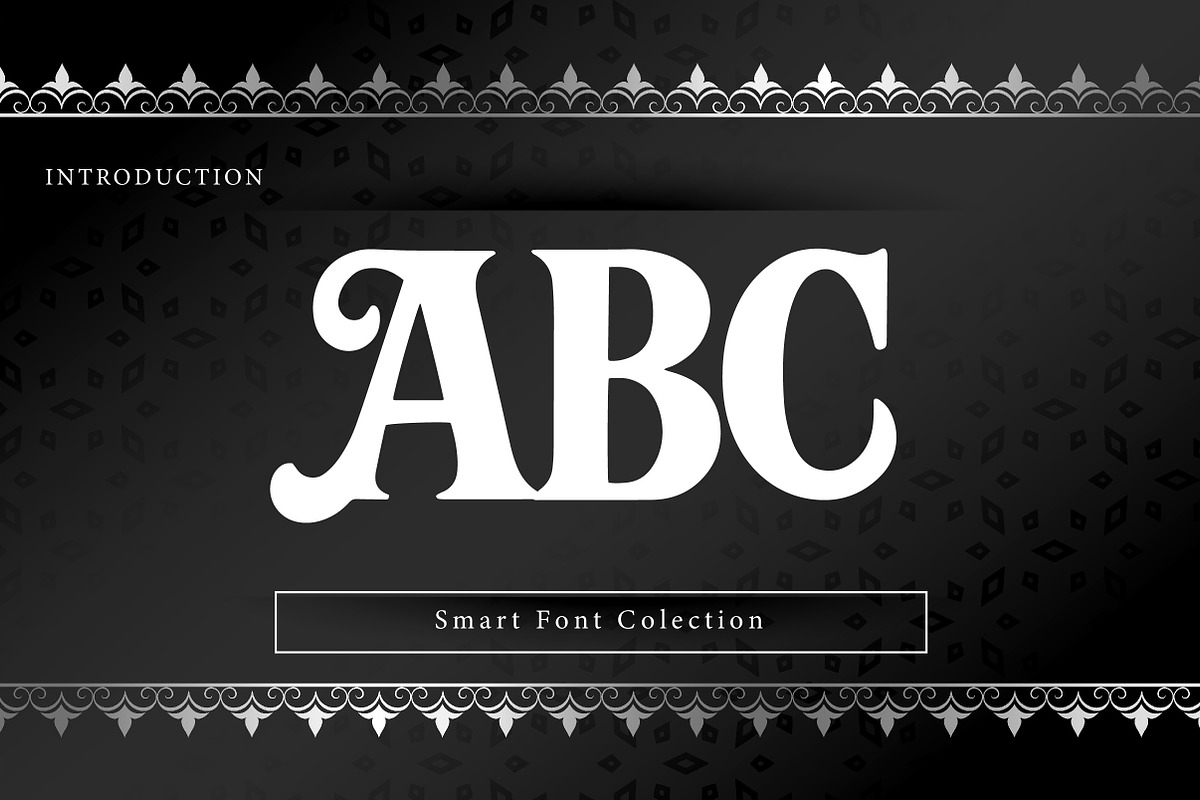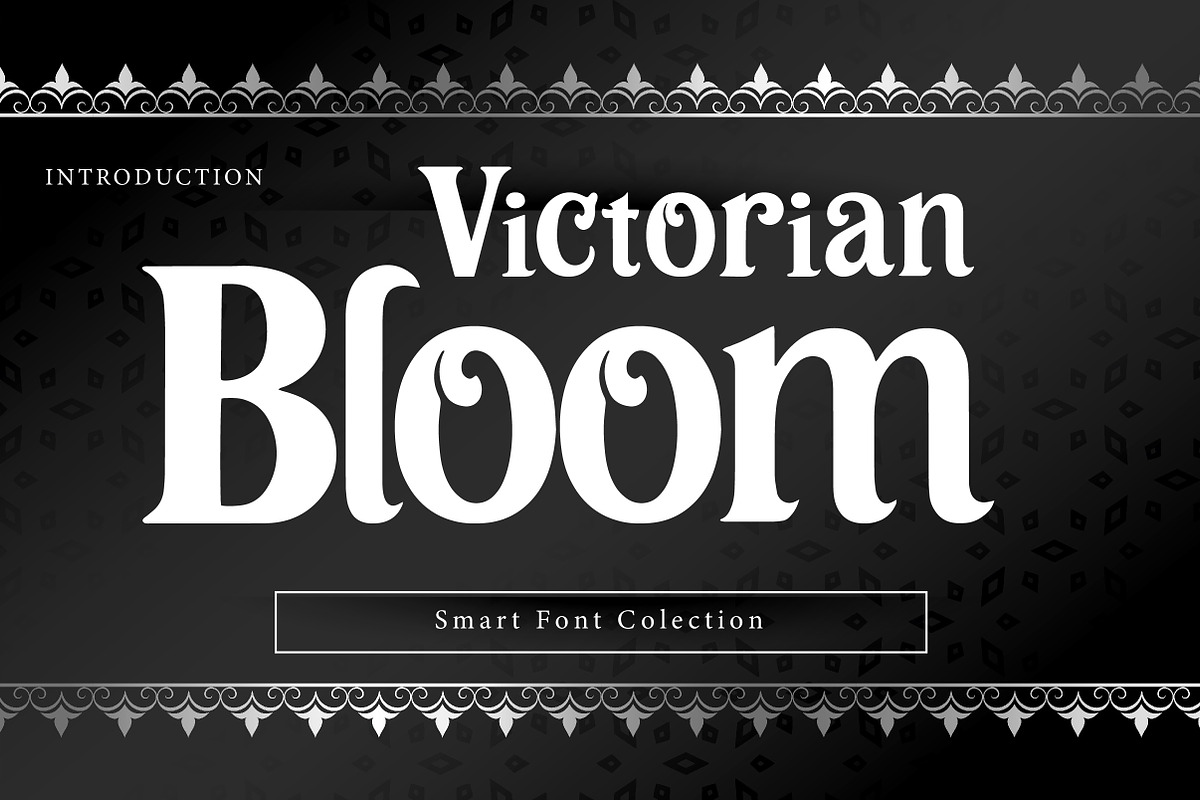
Victorian Bloom
Victorian Bloom is an ornamental serif typeface influenced by the elegance and craftsmanship of the Victorian era. Its bold letterforms, high contrast strokes, and subtle decorative elements evoke a sense of heritage, luxury, and historical romance.
This font is ideal for designers seeking a refined vintage aesthetic for logos, book covers, posters, packaging, invitations, and editorial layouts. Victorian Bloom balances readability with decorative flair, making it suitable for both display text and short headlines.
Perfect for projects that require a classic, retro, or antique atmosphere, Victorian Bloom adds sophistication and character to any design.